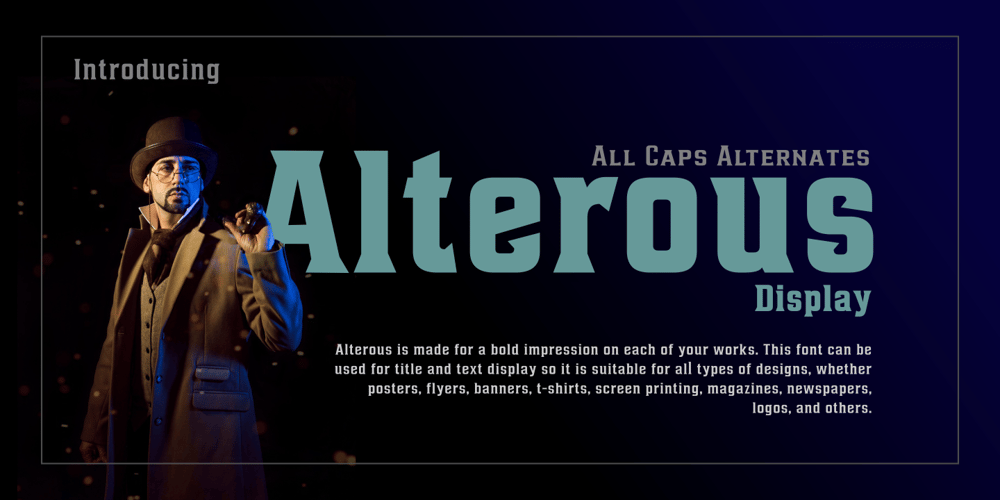
Alterous Display Font Family was designed by Ahmad Zulfikar Ali and published by ZetDesign. Alterous Display contains 3 styles and family package options. Alterous is made for a bold impression on each of your works. This font can be used for title and text display so it is suitable for all types of designs, whether posters, flyers, banners, t-shirts, screen printing, magazines, newspapers, logos, and others.